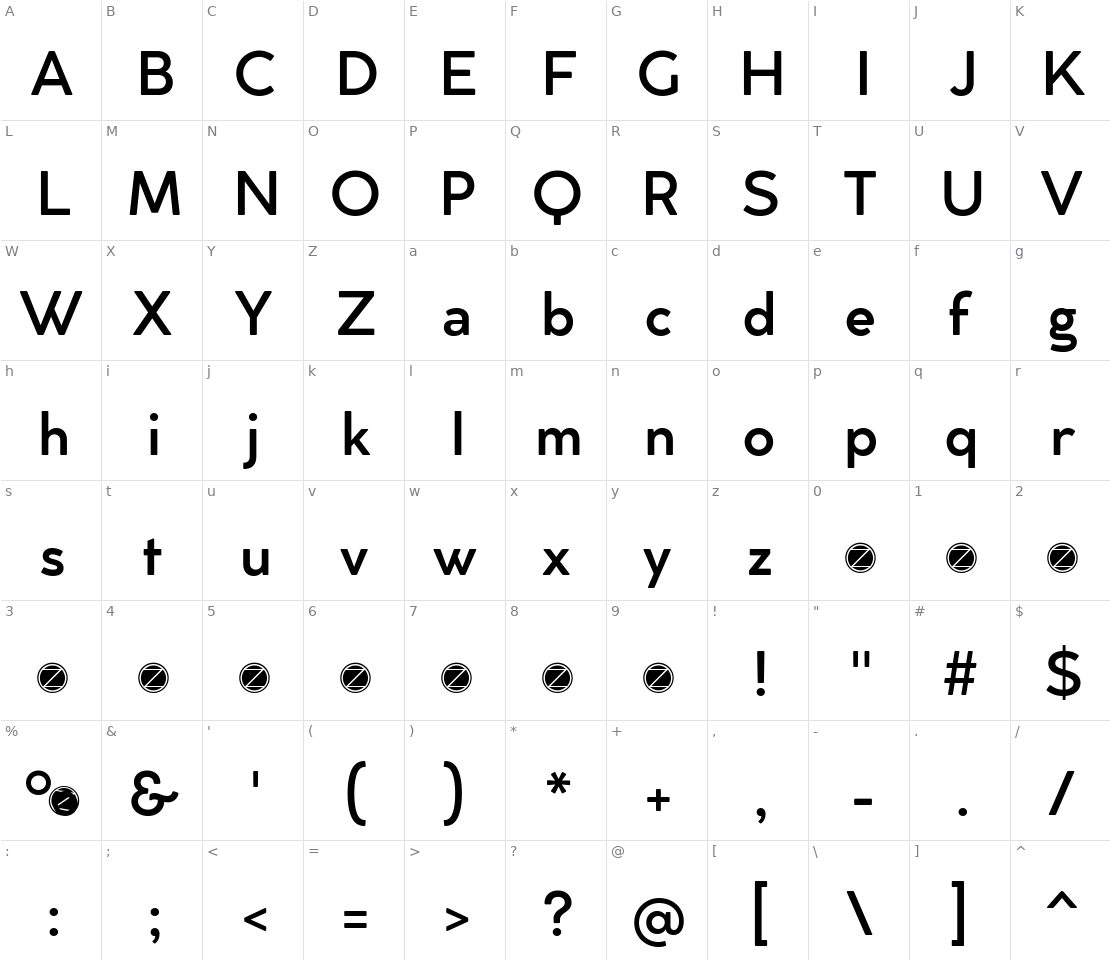
Cocogoose Classic
Cocogoose Classic is a bold, rounded geometric sans from Zetafonts with soft, pillowy letterforms that manage to feel both hefty and approachable. The clean lines and generous curves give it a modern, friendly warmth that works especially well for headlines, branding, and packaging. It's one of Zetafonts' most recognizable designs, sitting comfortably in that space where geometric discipline meets easygoing personality.